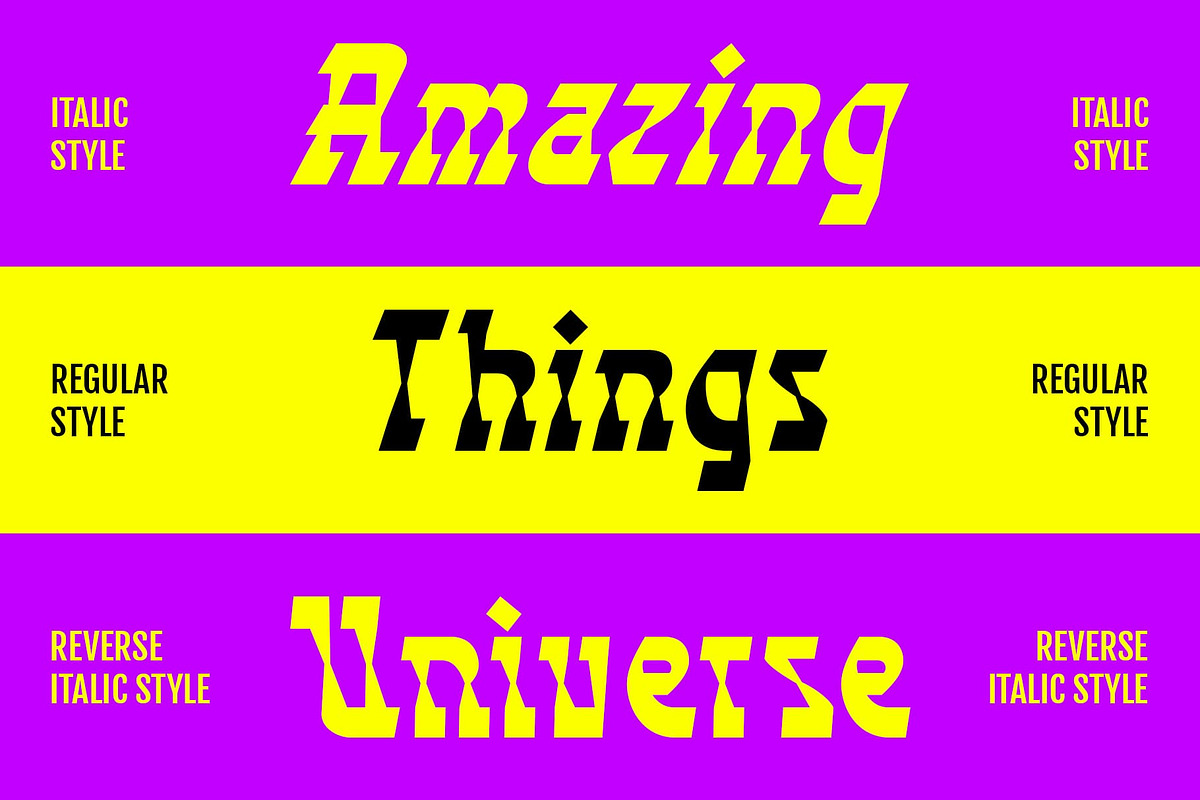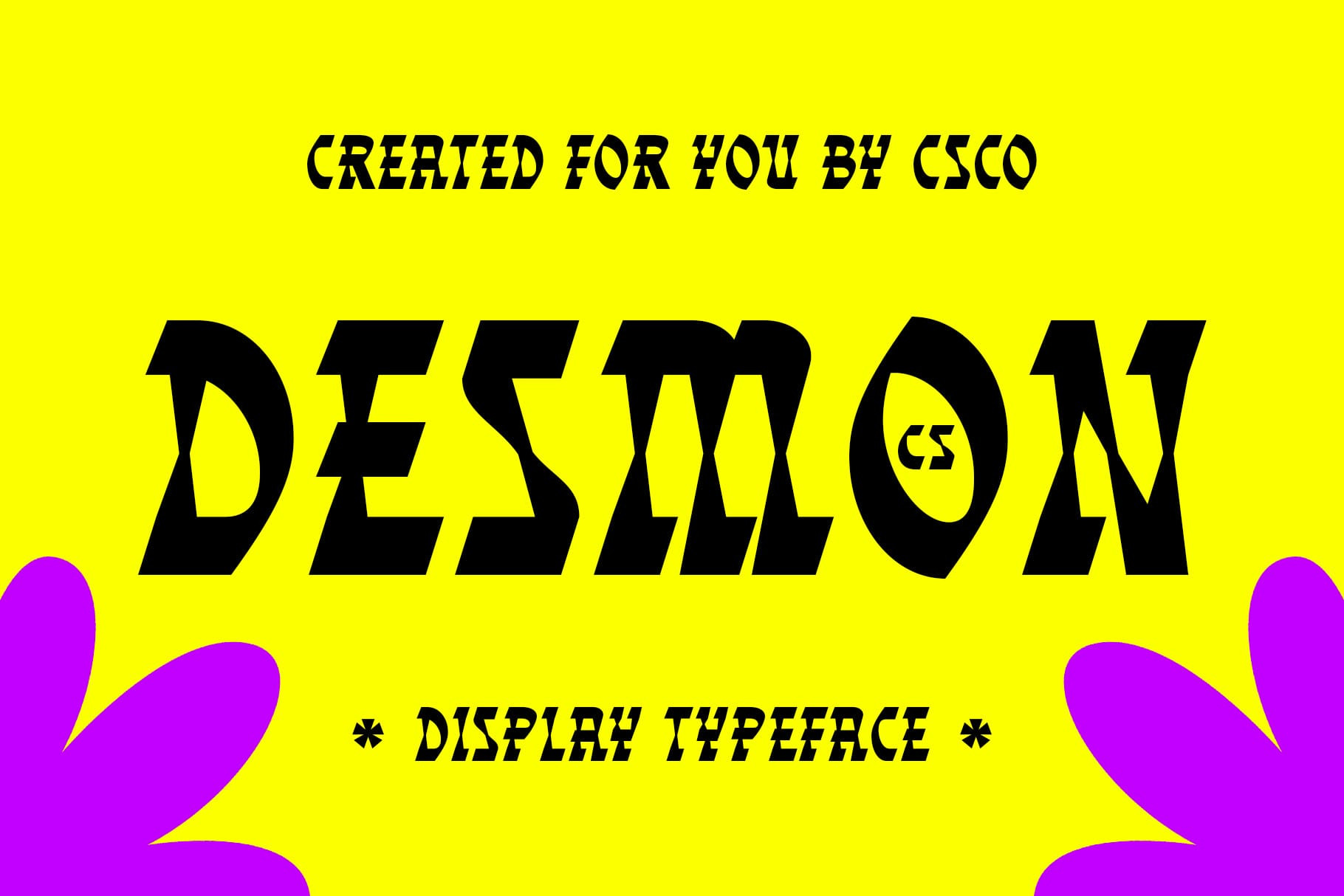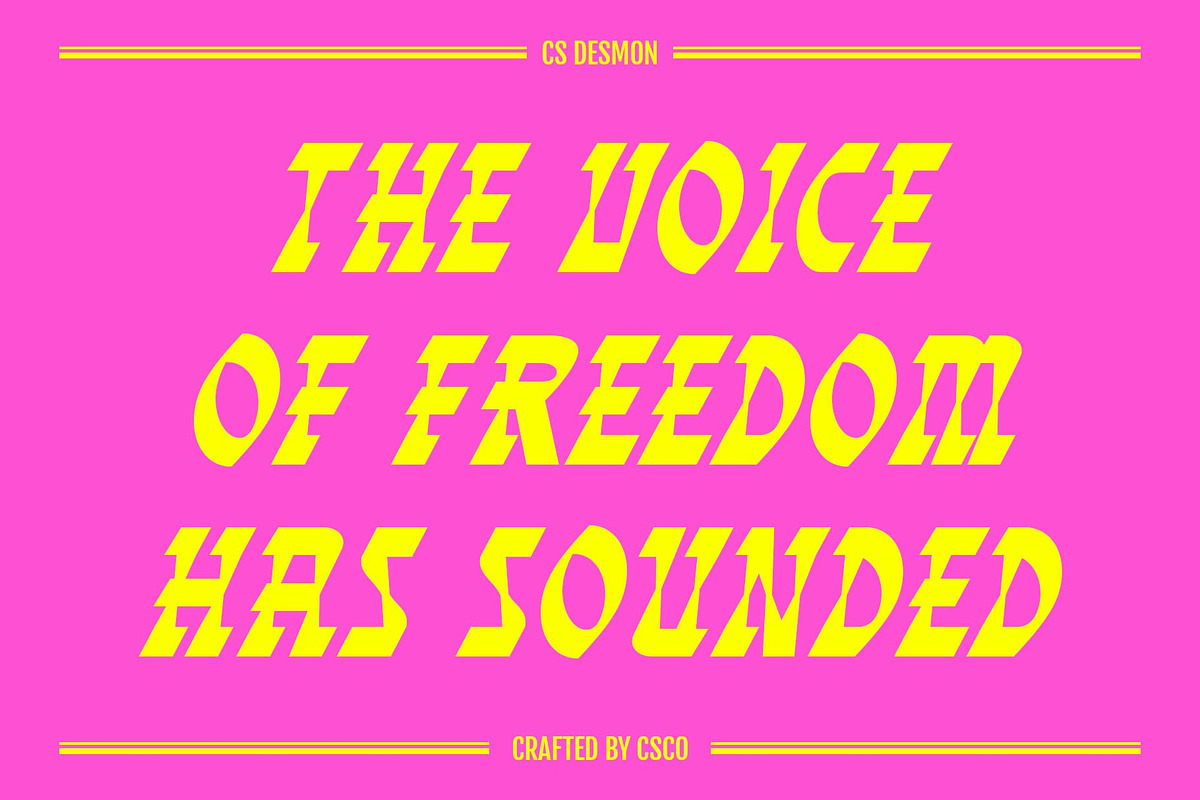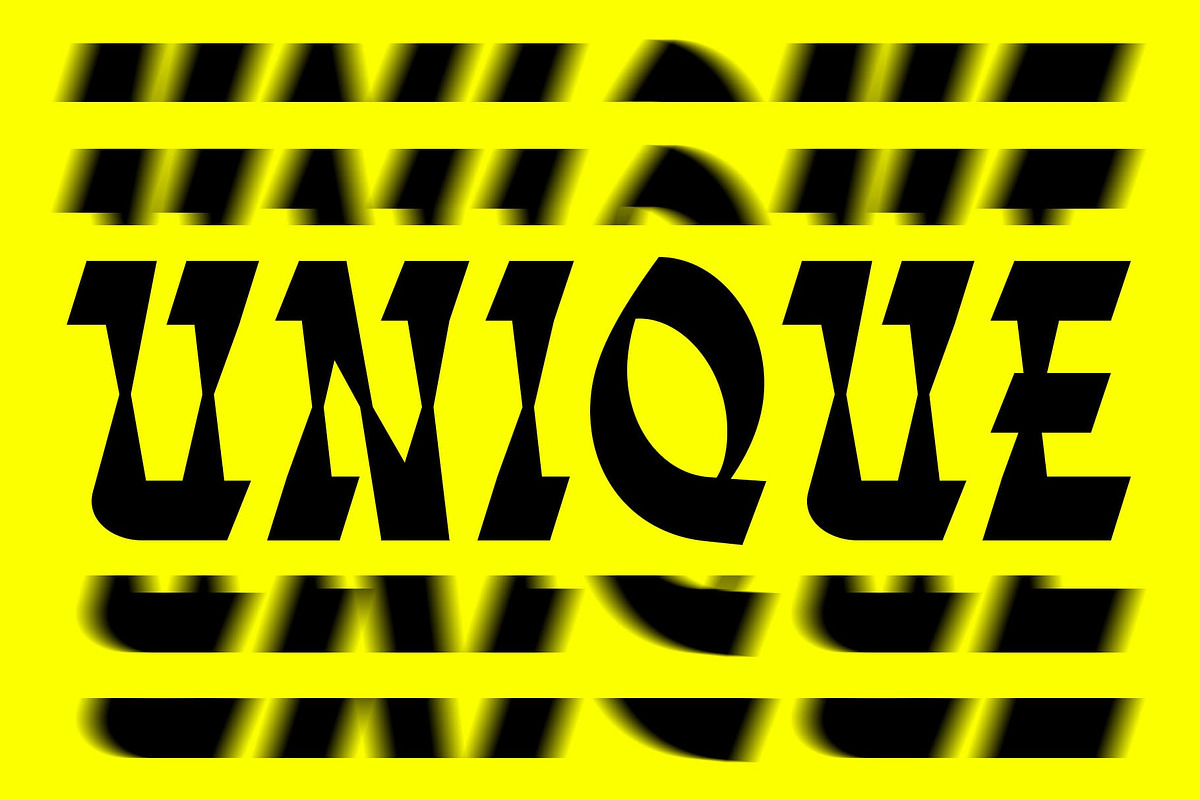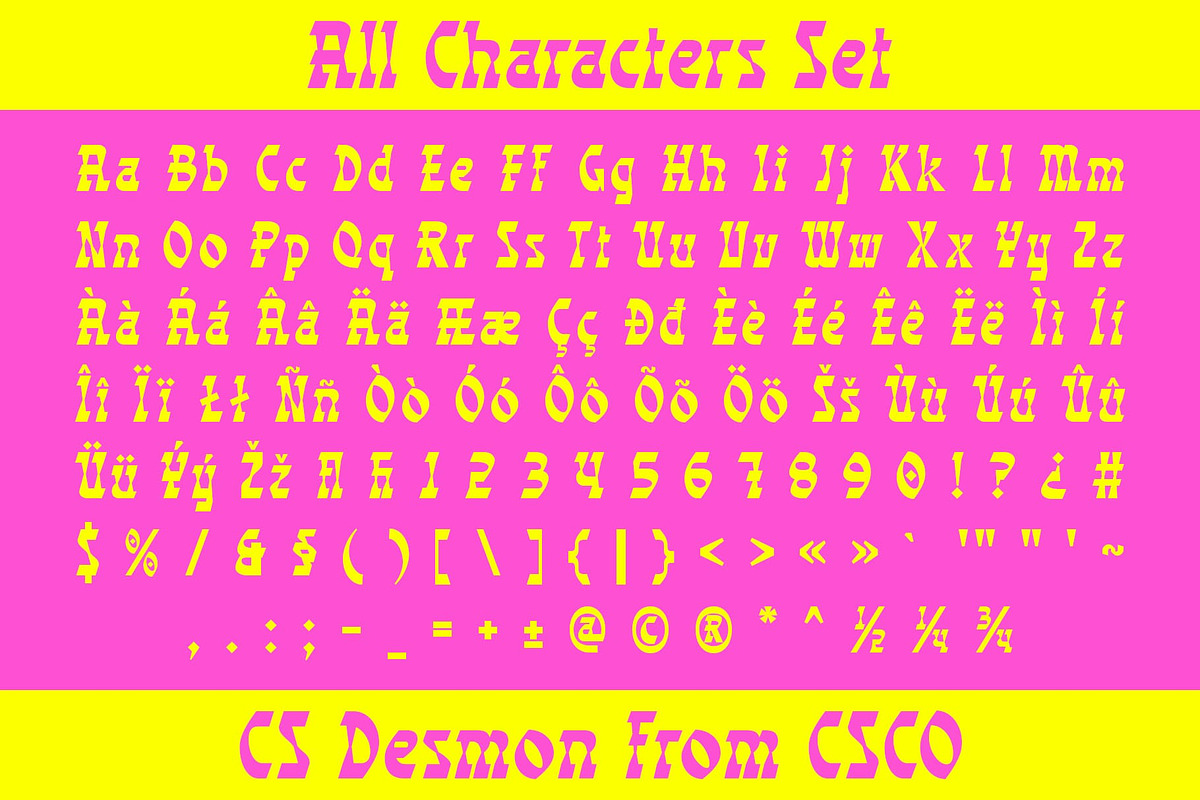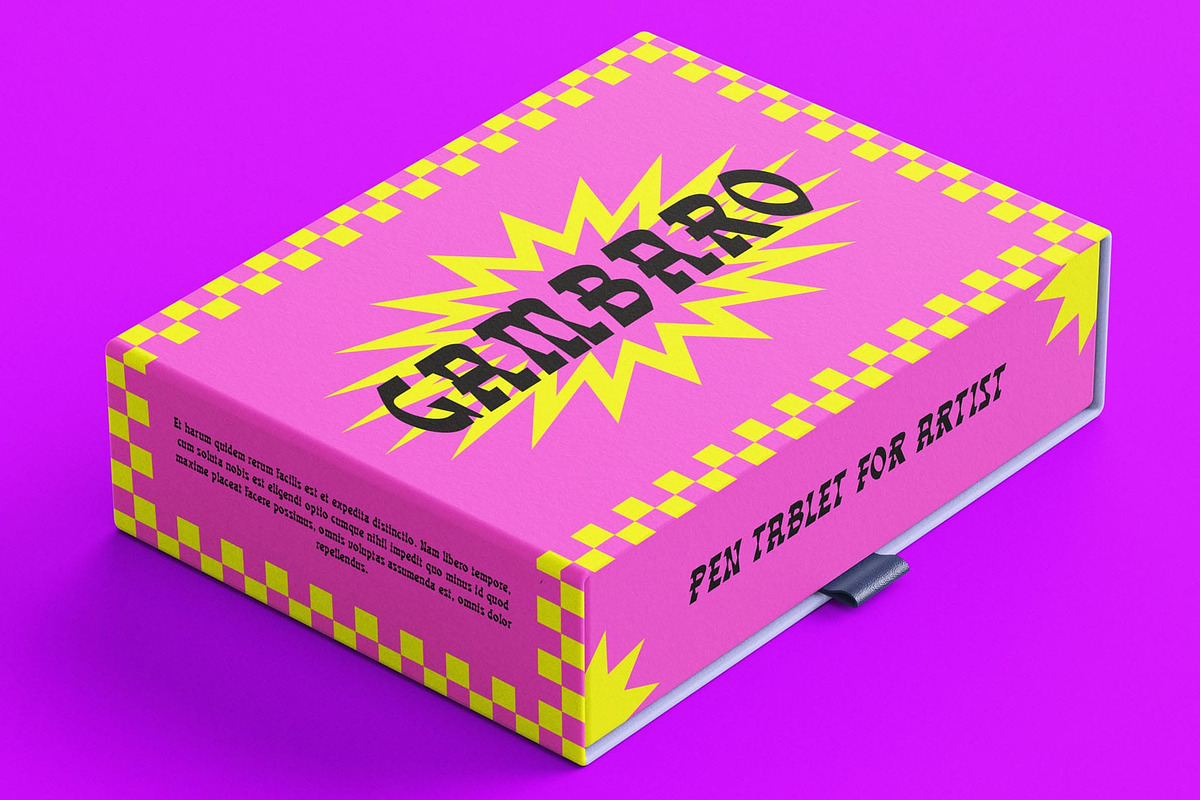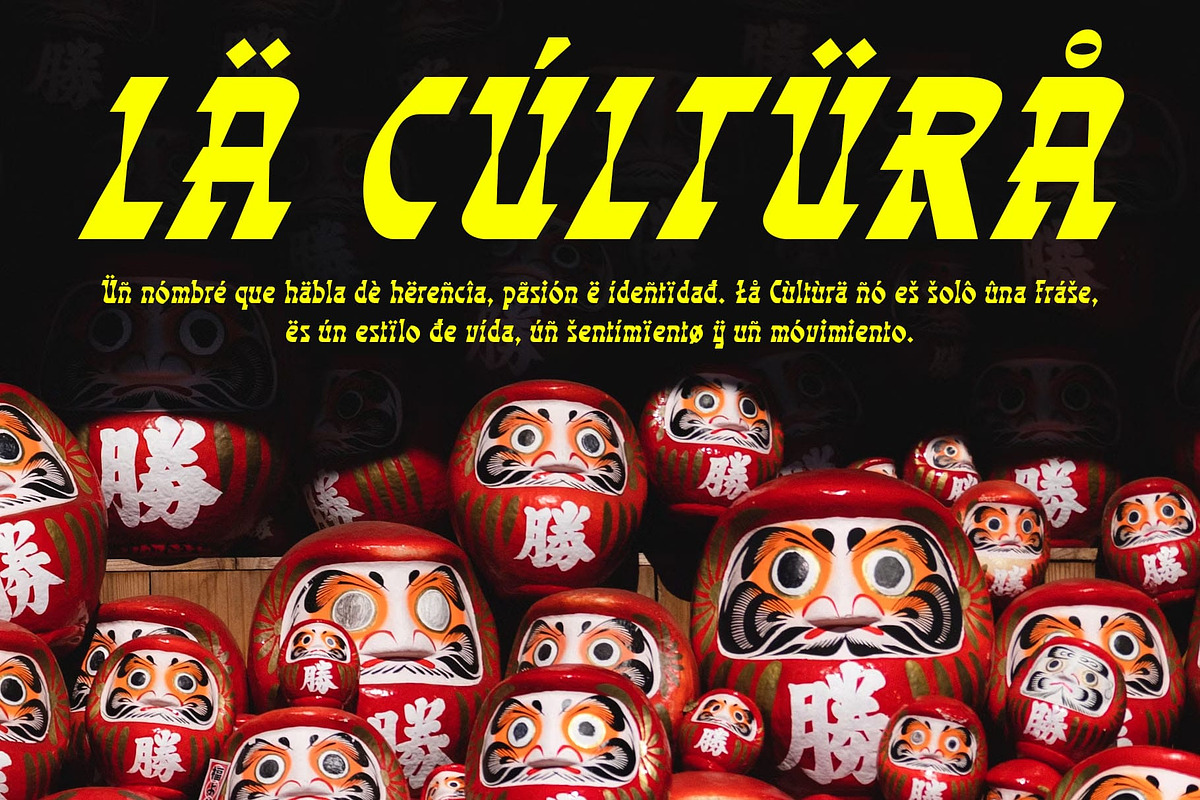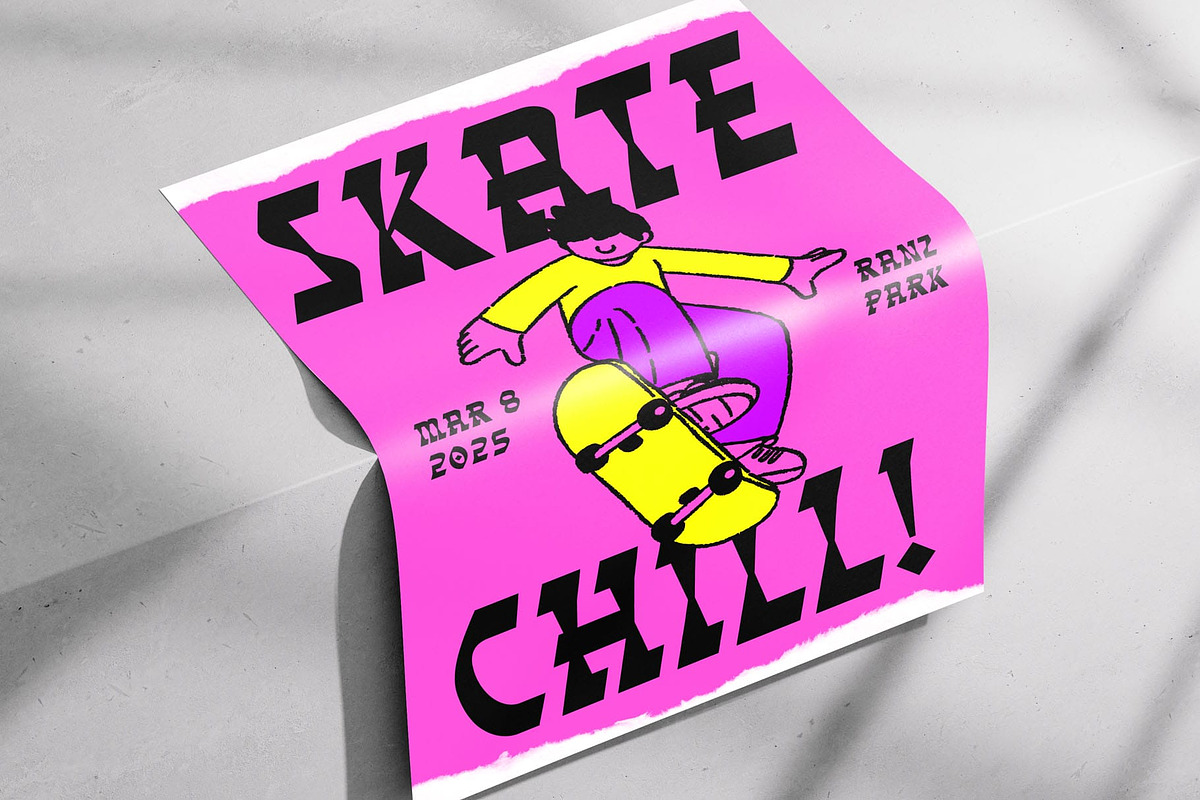
CS Desmon – Reverse Contrast Font
CS Desmon – Reverse Contrast Font: Bold, Funky, and Unconventional
Reverse Contrast Design for a Unique Visual Impact CS Desmon is a display font that pushes the boundaries of traditional serif design with its reverse contrast styling. In this unique approach, the lower parts of the letters are thinner, while the upper parts are thicker, creating a striking and unexpected visual effect. This contrast creates an intriguing look that grabs attention, making it perfect for designs that aim to stand out and create a bold impression.
Funky, Playful, and Vibrant Style In addition to its reverse contrast, CS Desmon incorporates funky elements that bring a playful and eccentric vibe to the design. The unusual letterforms and energetic appearance make this font ideal for vibrant, creative projects where personality and fun are key. Its quirky, almost hand-drawn aesthetic makes it perfect for design concepts that need to break away from the norm and showcase something fresh and original.
Perfect for Creative and Attention-Grabbing Designs CS Desmon’s unique and funky vibe is perfect for a variety of projects that require creativity and boldness. Whether you’re designing music posters, colorful ads, or distinctive branding, this font is designed to capture the audience’s attention and leave a lasting impression.